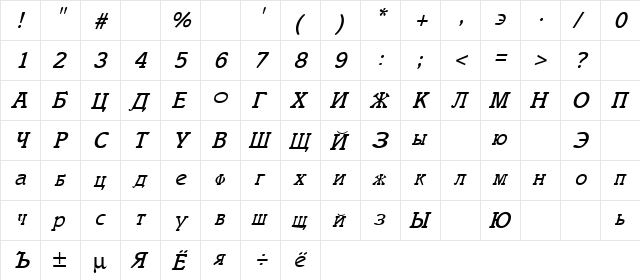
Firebird 2 Italic
Design Context for Firebird 2 Typeface
Firebird 2 is a composed and adaptable typeface that performs quietly and consistently across a wide range of design contexts. The slanted form adds forward momentum and visual energy.